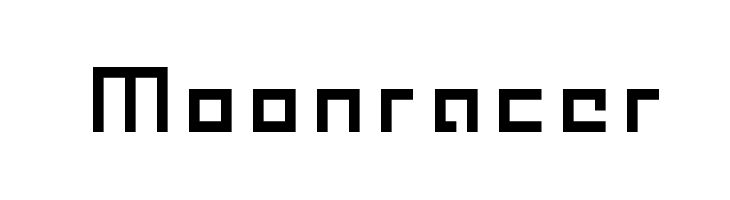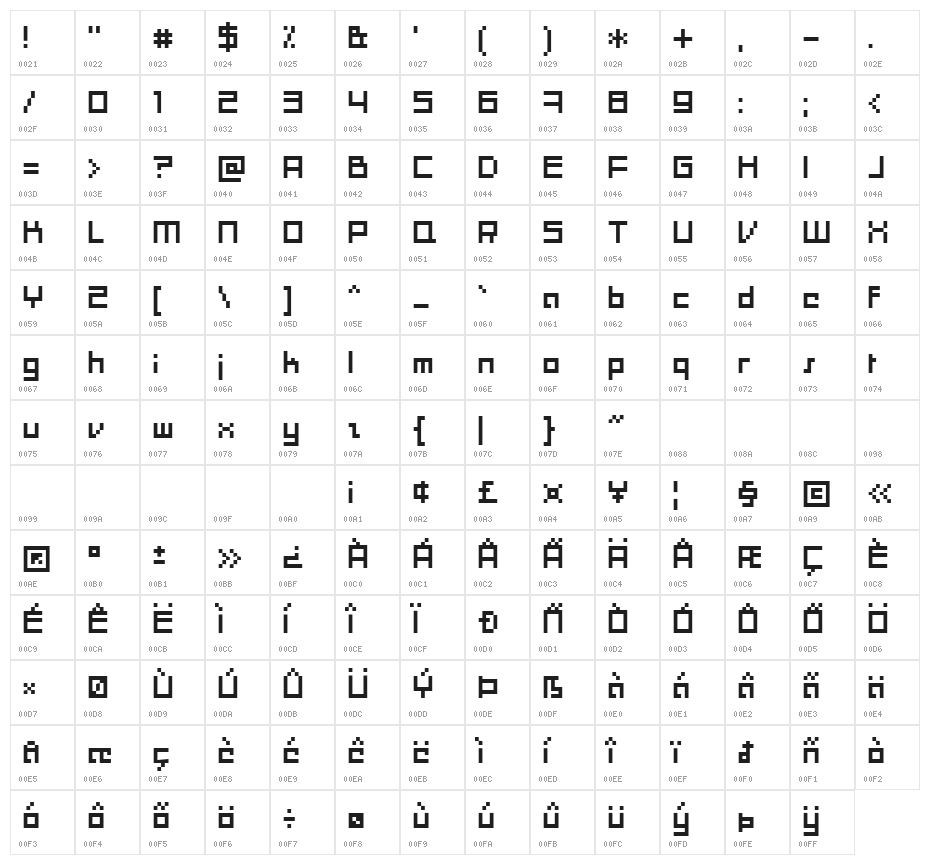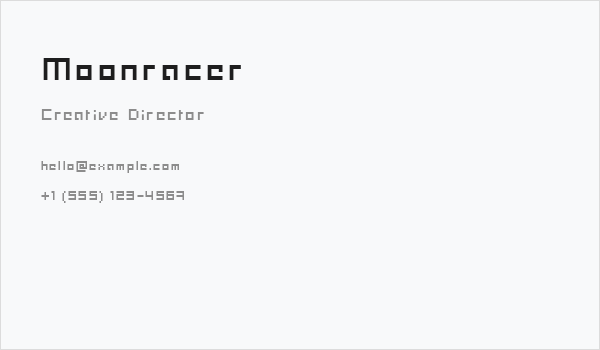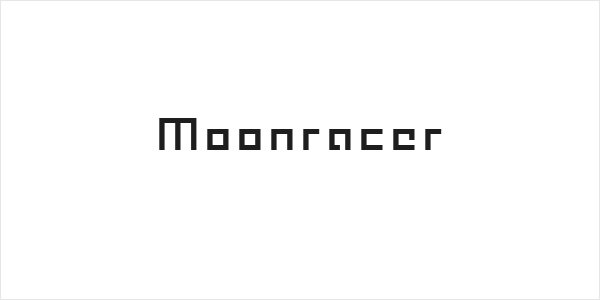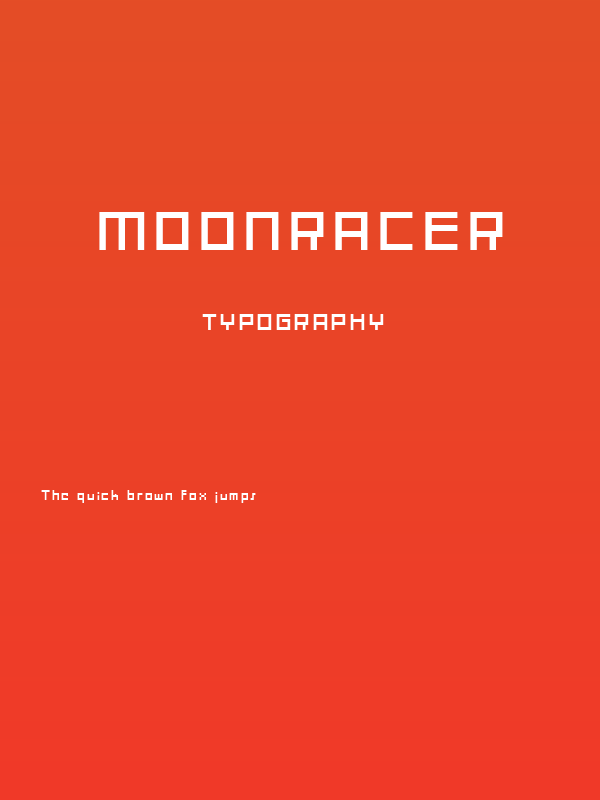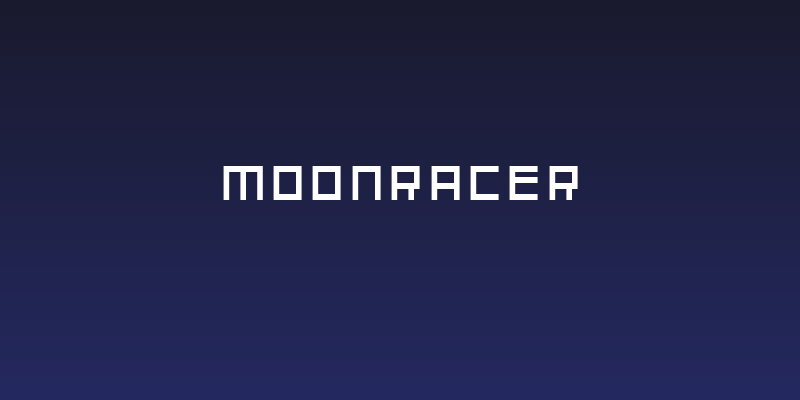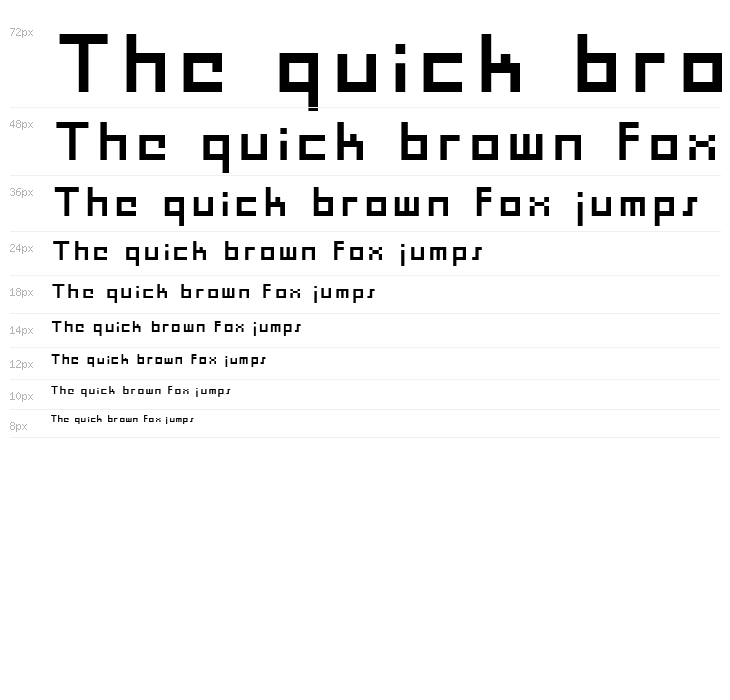
Moonracer Font
Moonracer Description
This font features a pixelated, blocky design reminiscent of early digital displays and retro video games. Each character is constructed with a uniform grid-like pattern, giving it a distinctly geometric and mechanical appearance. The uppercase and lowercase letters maintain a consistent height, contributing to a monospaced feel. Numbers and special characters follow the same structured design, ensuring uniformity across all glyphs. The font's style is highly legible at various sizes, making it suitable for digital interfaces and nostalgic design projects. Its unique aesthetic captures the essence of vintage computing, making it ideal for projects that aim to evoke a sense of nostalgia or a retro-futuristic vibe.